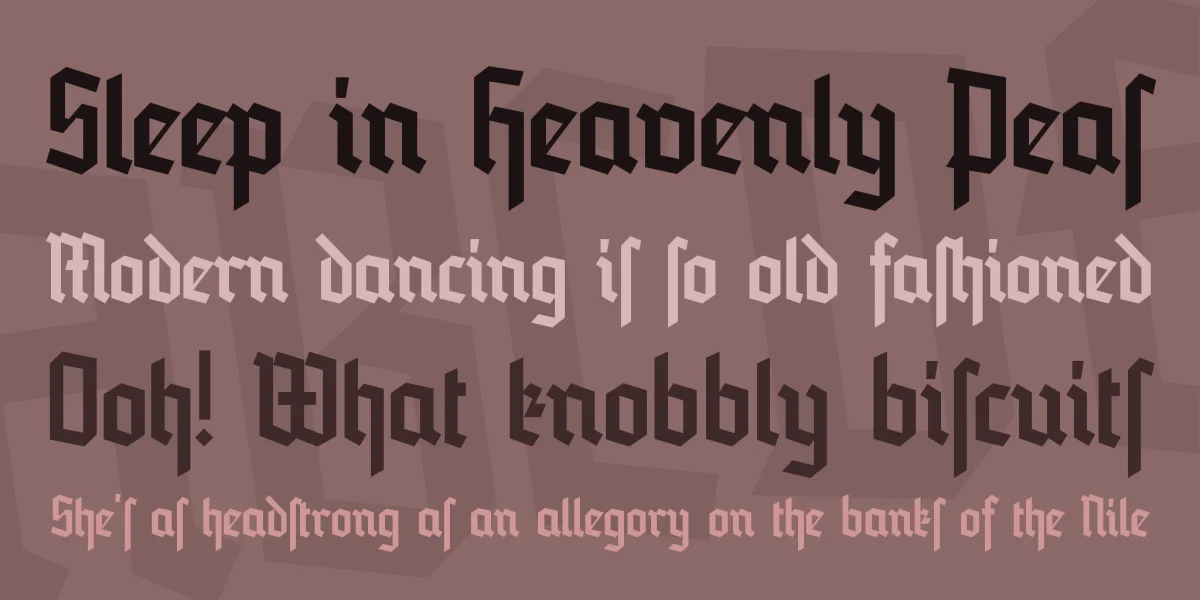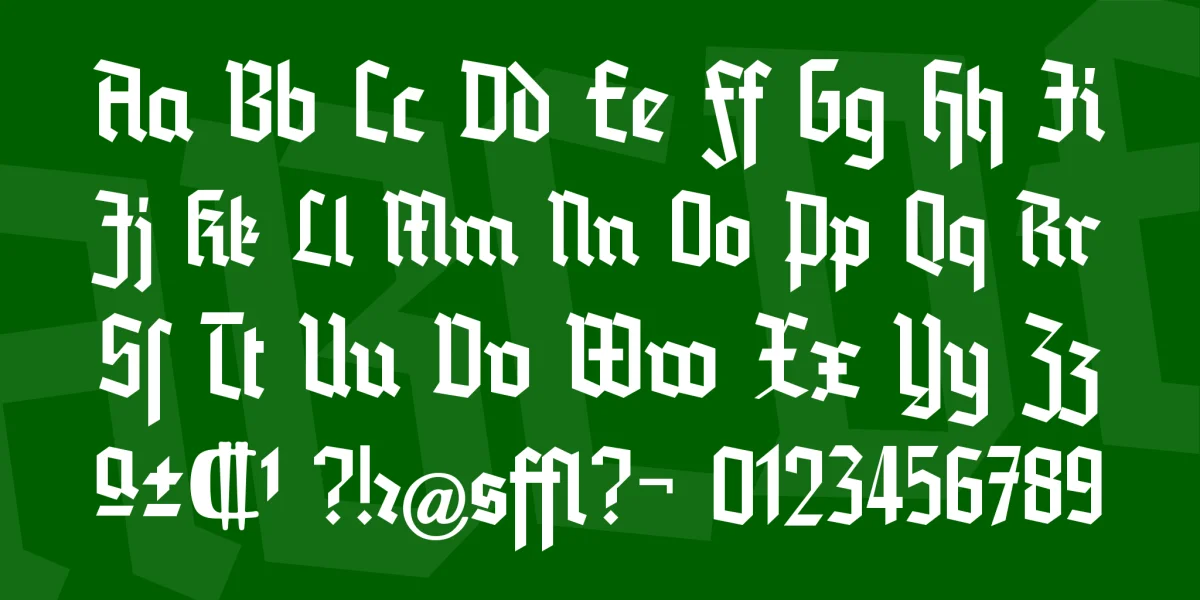
When writing Blankenburg is a free, semi-condensed version of the Eric Meyer in the years 1933 - 35 font developed Tannenberg. But as I expressly dissociate myself from the political background of this font, I have omitted the runes and chosen a different, more neutral name. I have traced the font because this font many trainstation buildings were labeled with the respective place names, and so such a script for a realistic design of station buildings 2 and 3 is used to model systems of epochs.